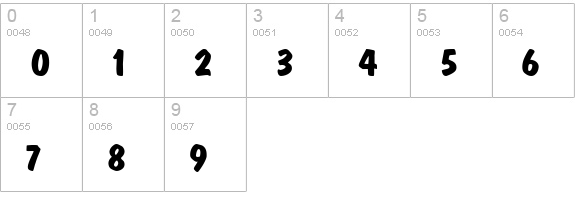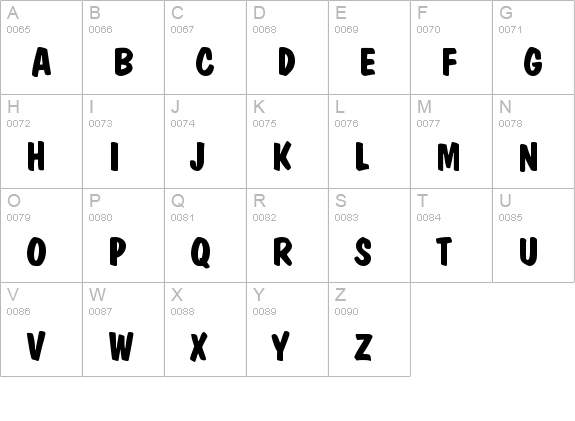
TR Dawn Castle Bold Font Details
TR Dawn Castle Bold is a strong, high-contrast variant in the TR typeface family \xE2\x80\x94 well suited to headlines, attention-grabbing titles, and strong calls-to-action.
TR Dawn Castle Bold font is a stunning and bold typeface that exudes elegance and sophistication. Its strong and distinct letterforms make it perfect for creating eye-catching headlines and attention-grabbing designs. This versatile font is ideal for a wide range of projects, from branding and advertising to packaging and editorial design. What's even better is that TR Dawn Castle Bold font is available for free download at FontsMarket.com. You can easily access this beautiful font and use it in your projects without any cost. Don't miss out on the opportunity to enhance your designs with this striking and modern typeface. Download TR Dawn Castle Bold font today and elevate your creative work to the next level.